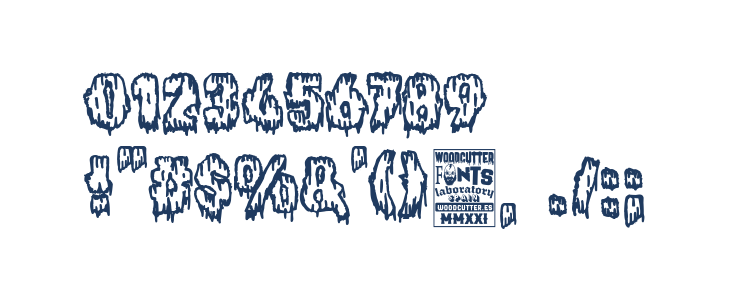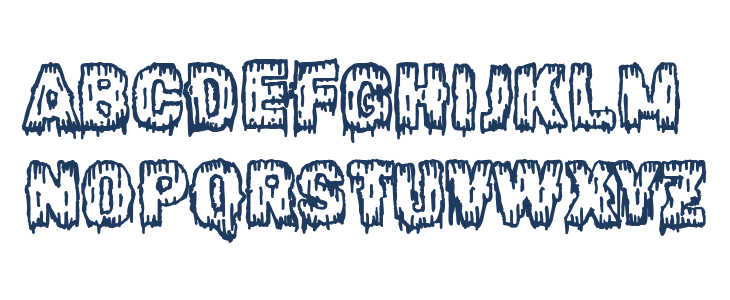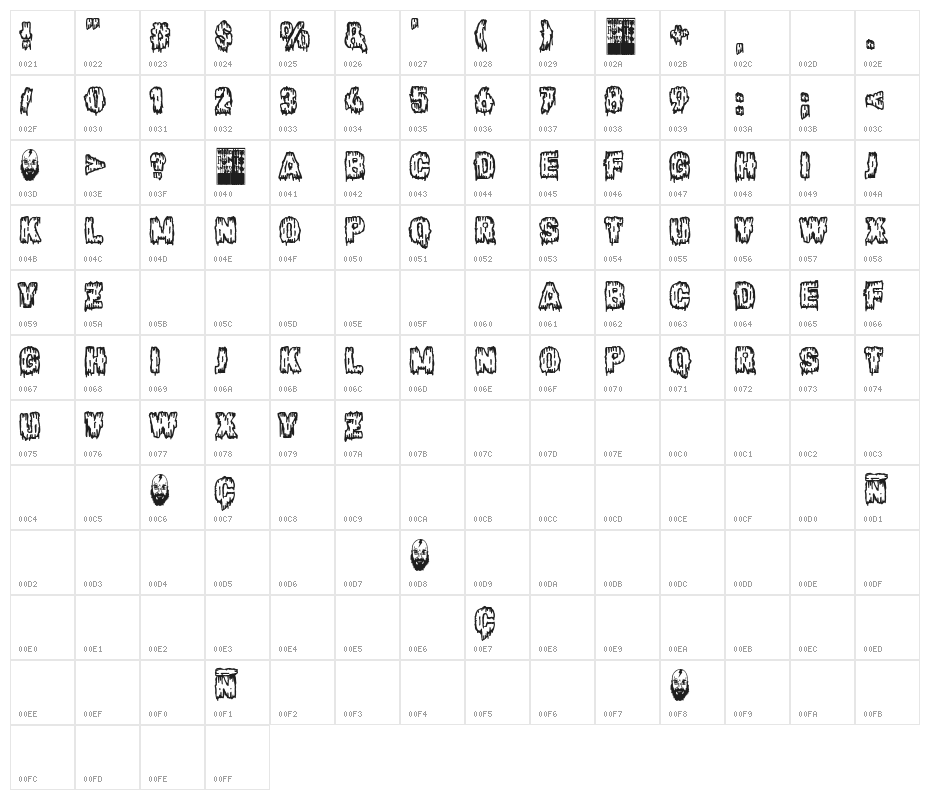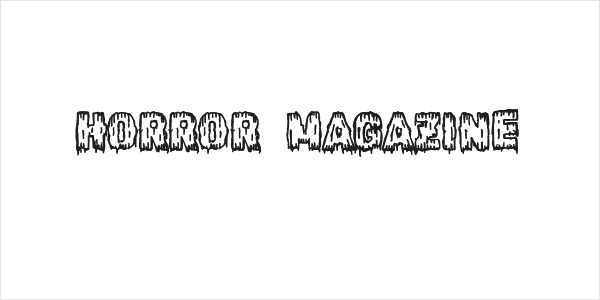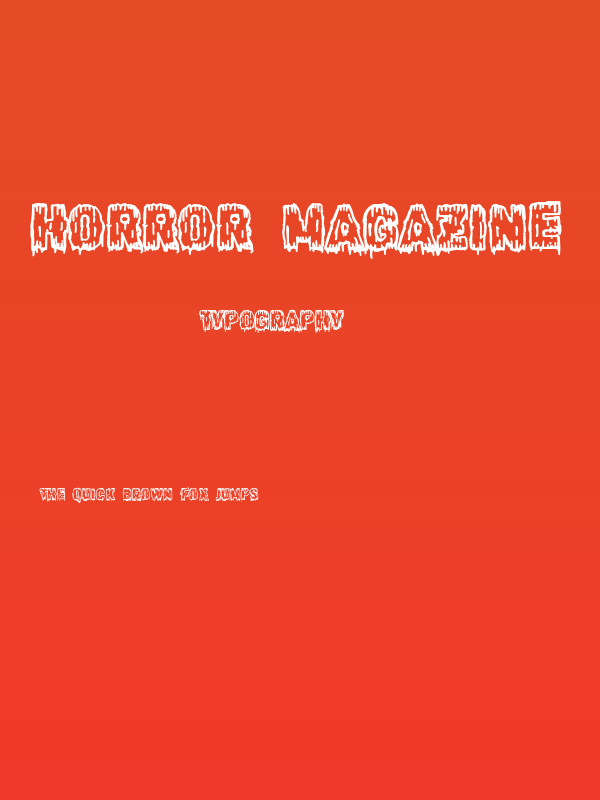
Horror Magazine Font
Horror Magazine Description
A bold, decorative display font with a dripping, melting effect on each character, evoking a horror or slime-like aesthetic. The characters are uppercase, irregular, and have thick outlines with uneven edges, creating a sense of movement and unease.
Overall StyleDecorative, Horror, Thematic
Use CaseHeadlines, Posters, Logos, Themed Graphics
Proposed ProjectsHorror magazine covers, Halloween event posters, spooky party invitations, themed branding, video game titles, movie posters.